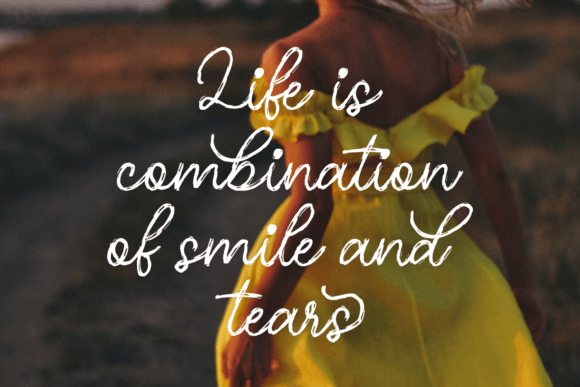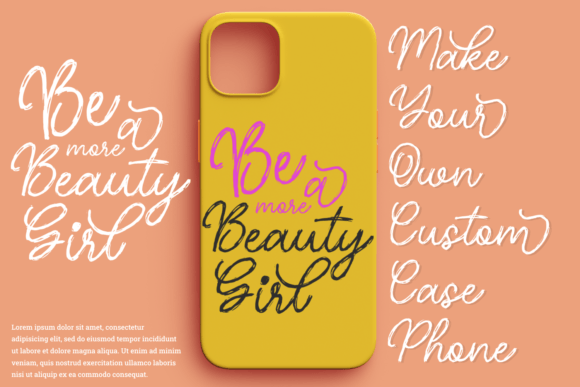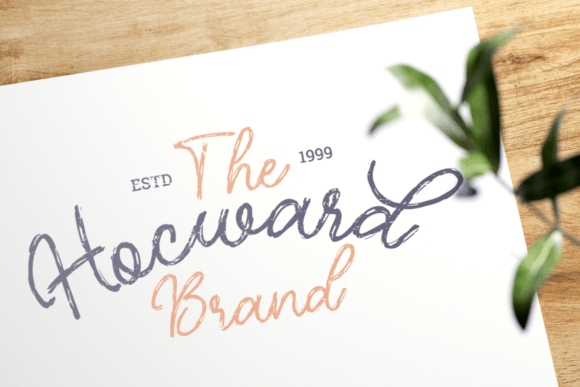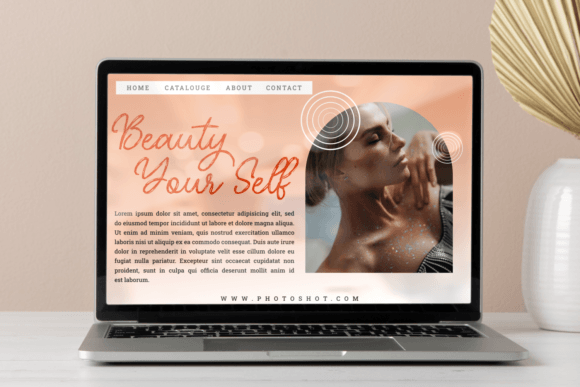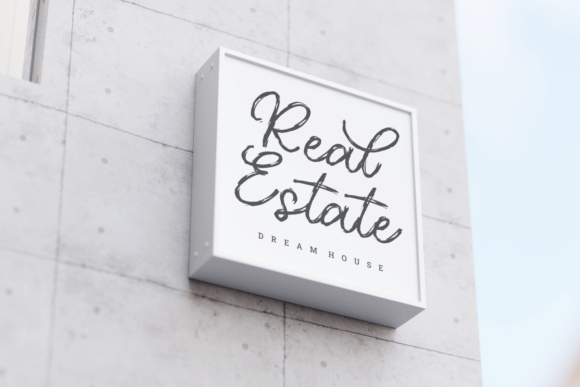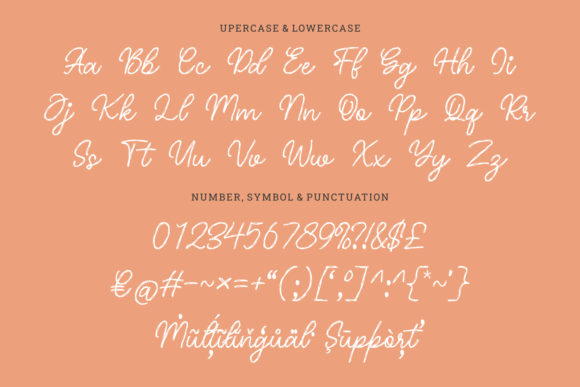
Introduction to Analucia Font
Analucia is a stylish and charming script font.
This calligraphic font is ideal for projects that require beautiful, feminine, and authentic-looking typography It looks fantastic on logos, business cards, invitations, quotes, and more.
Analucia Font offers exceptional quality and versatility, making it a valuable addition to your design toolkit. Whether you’re creating for personal projects or commercial use, Analucia Font delivers professional results.